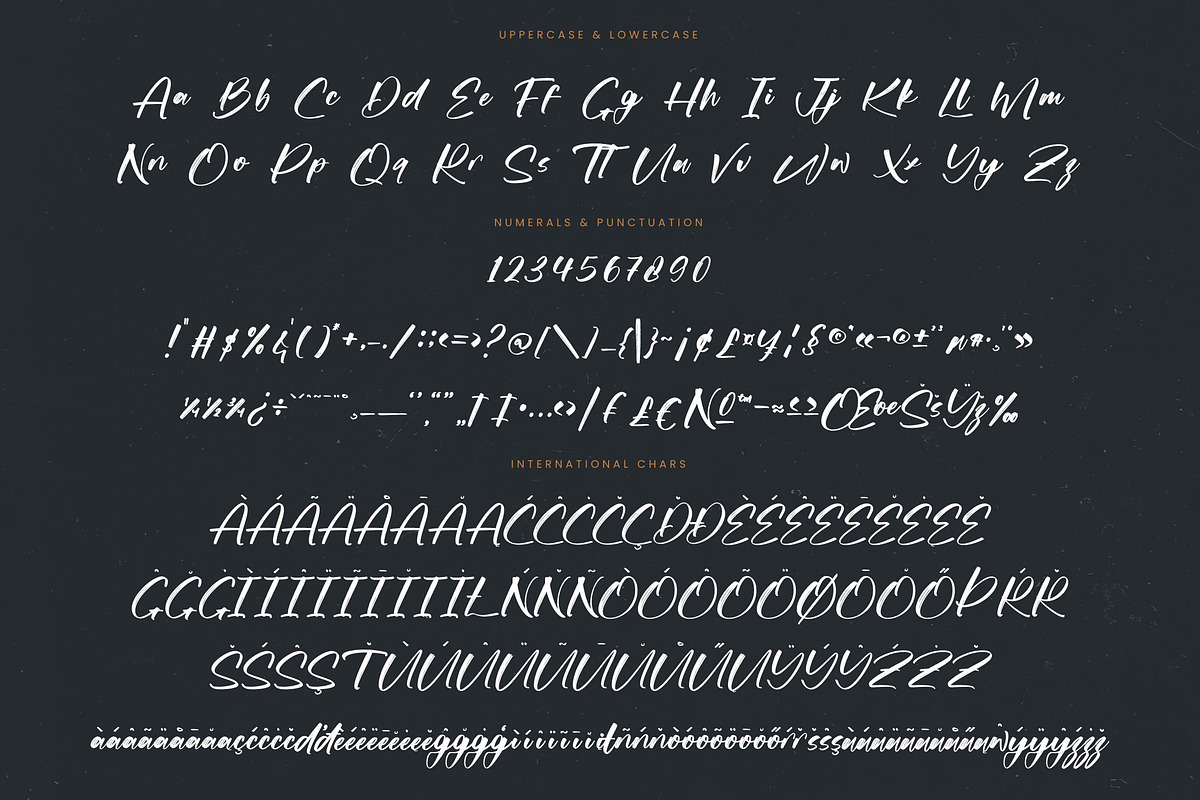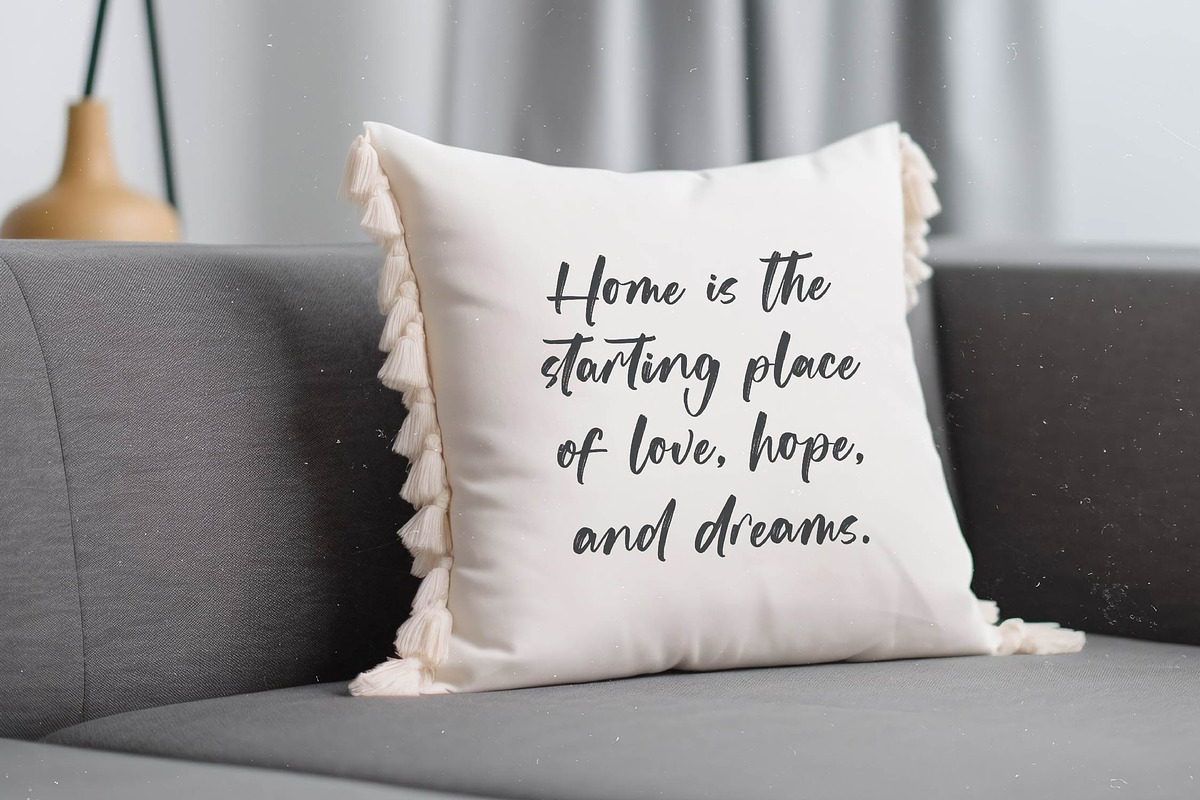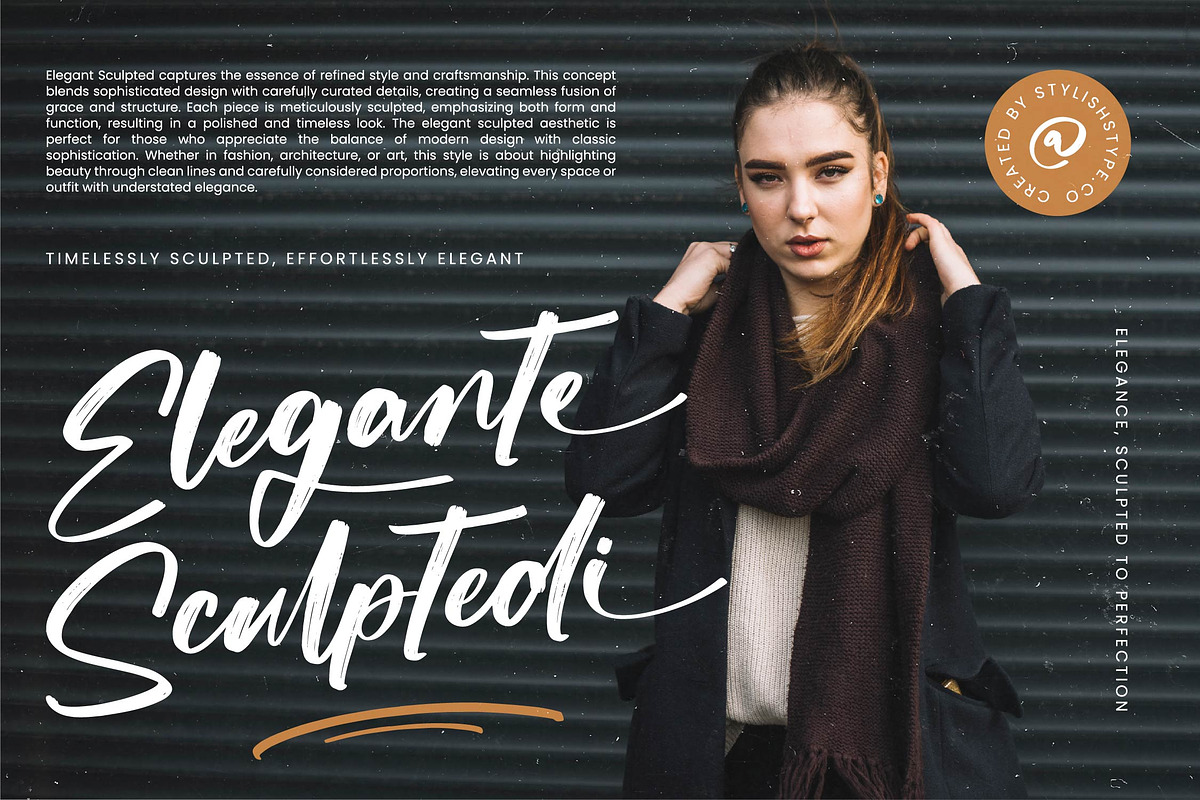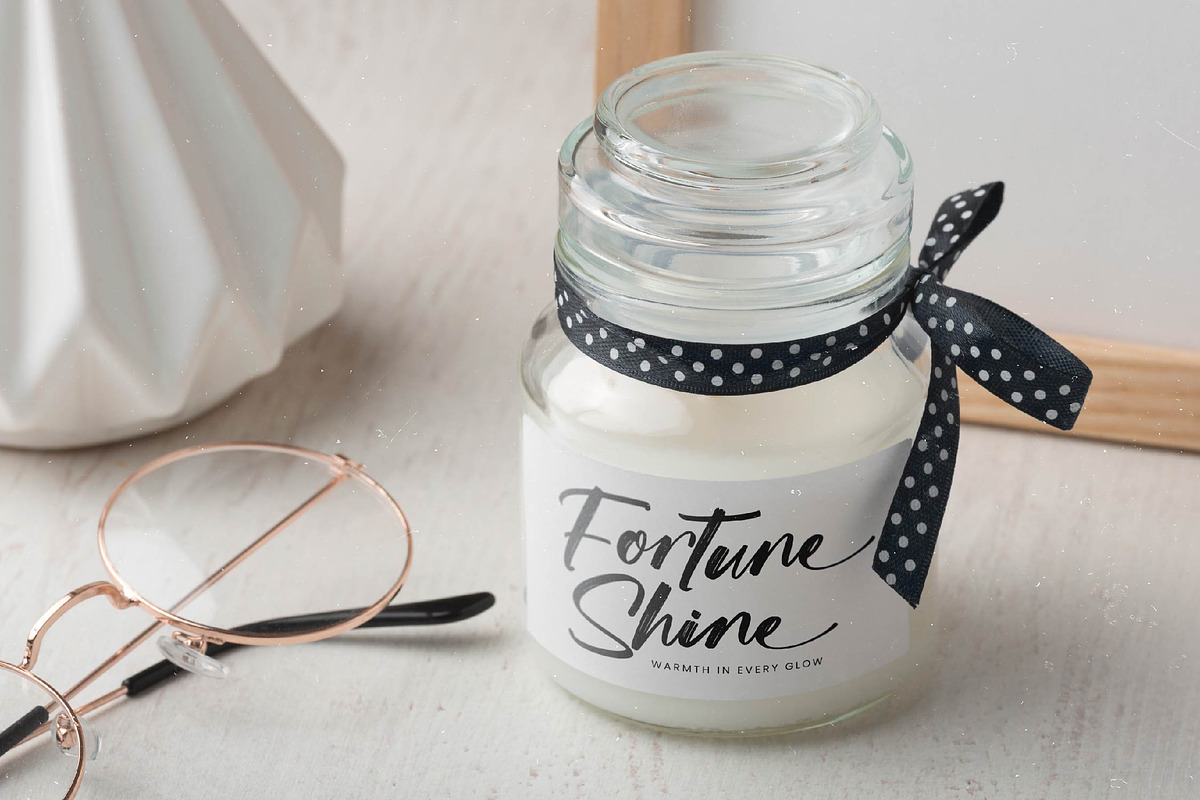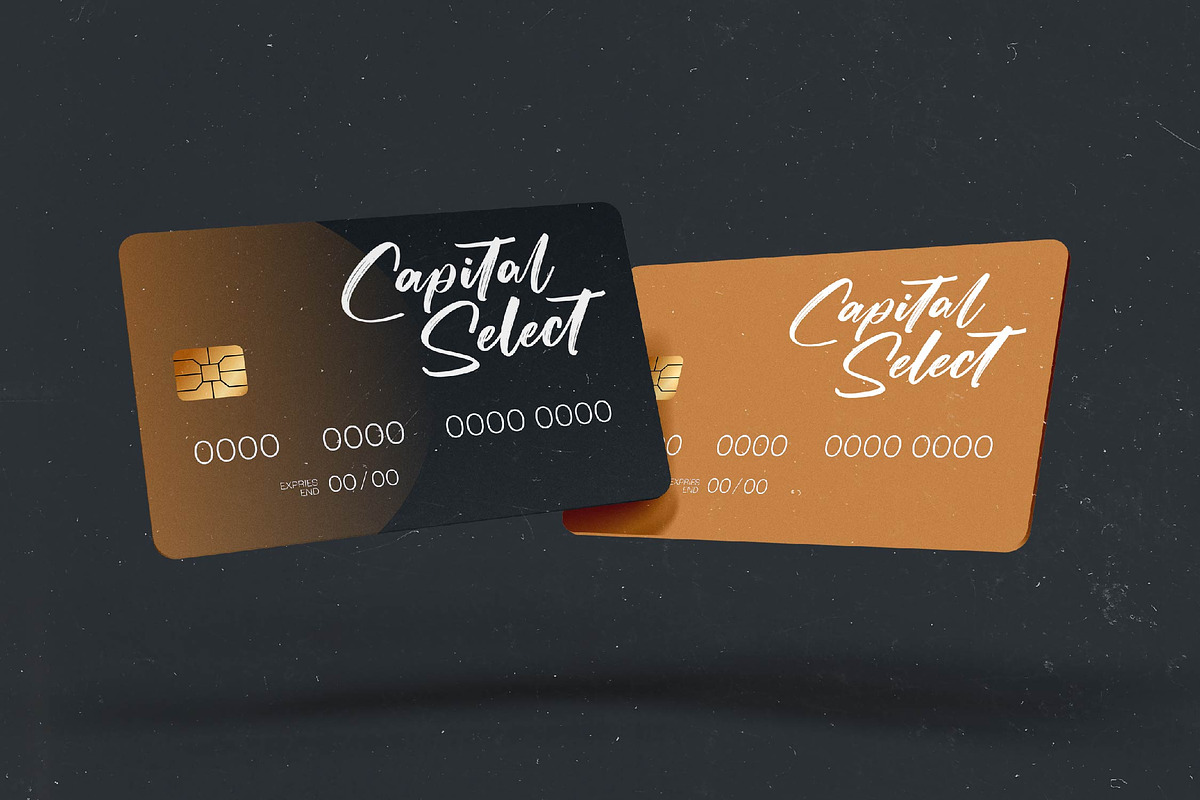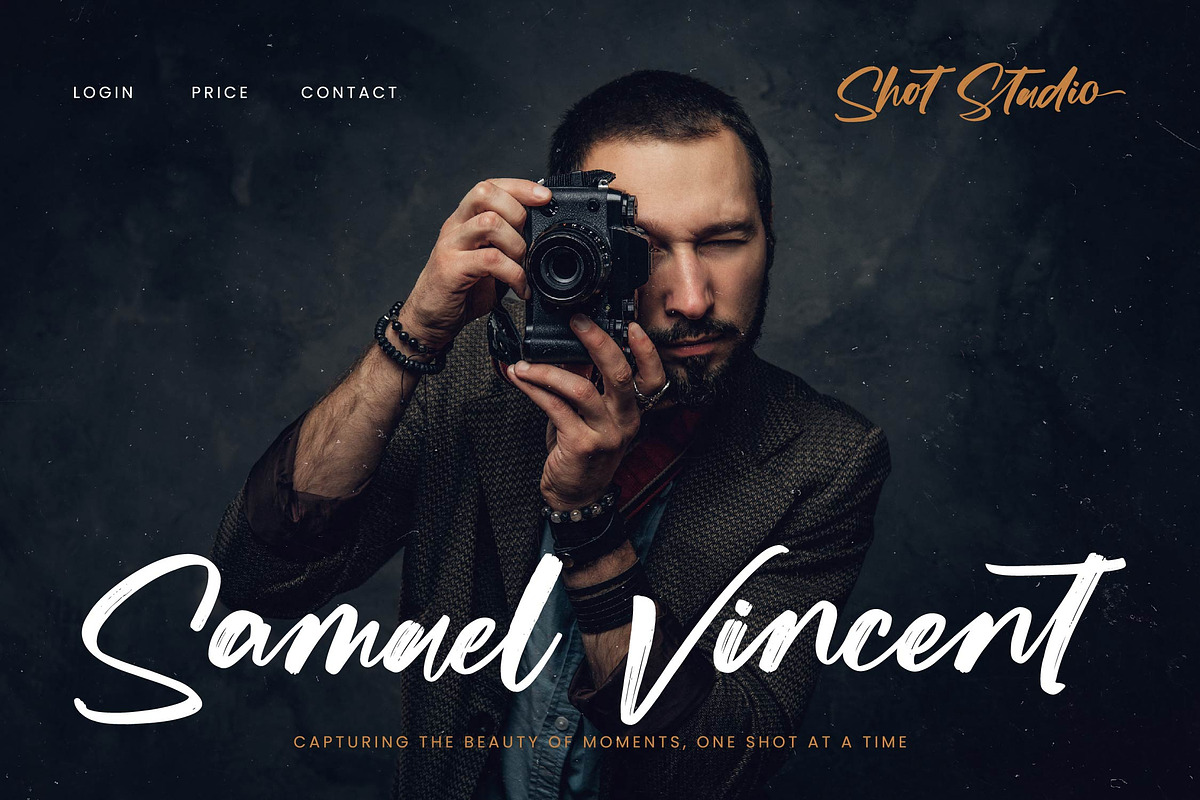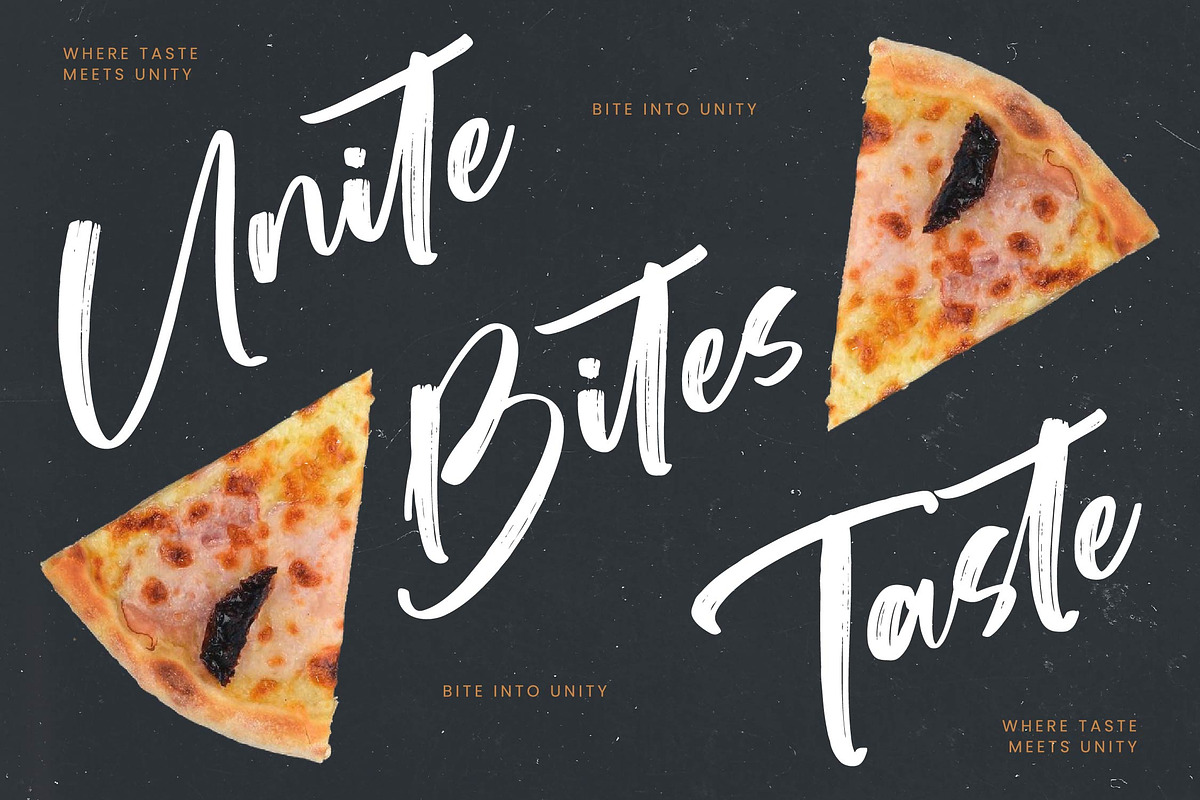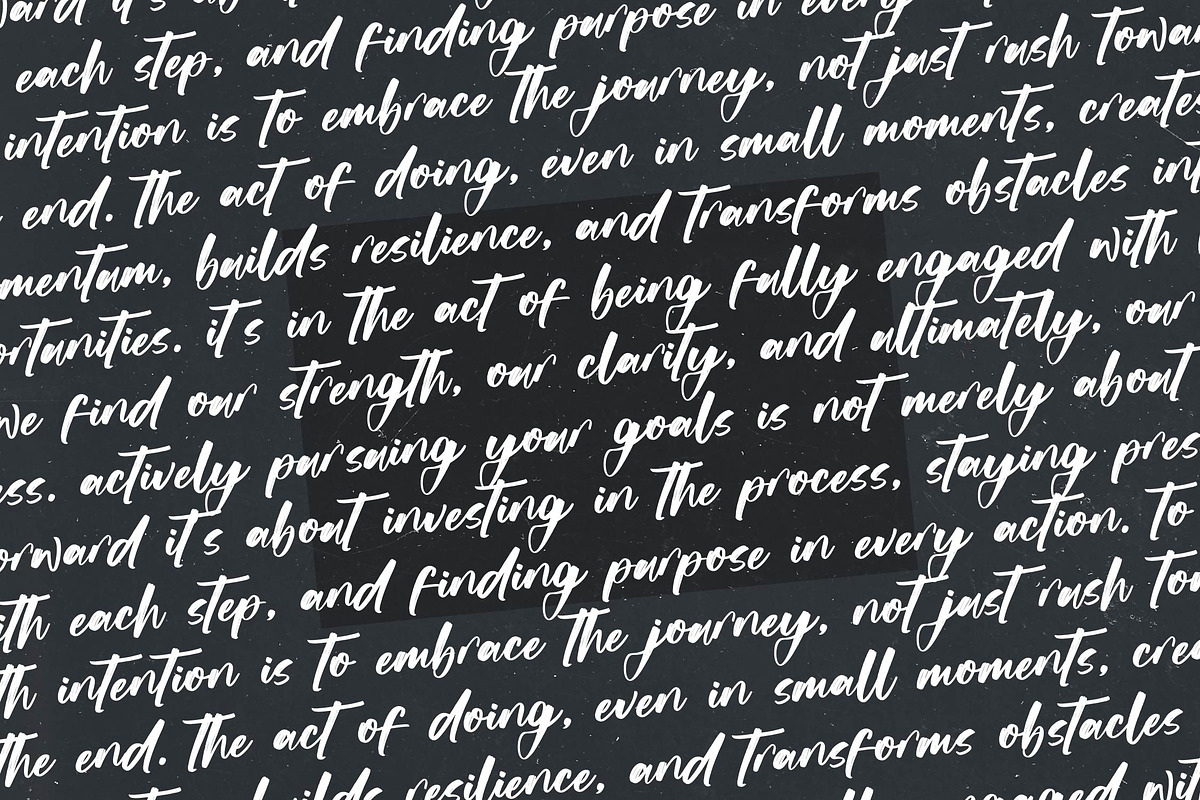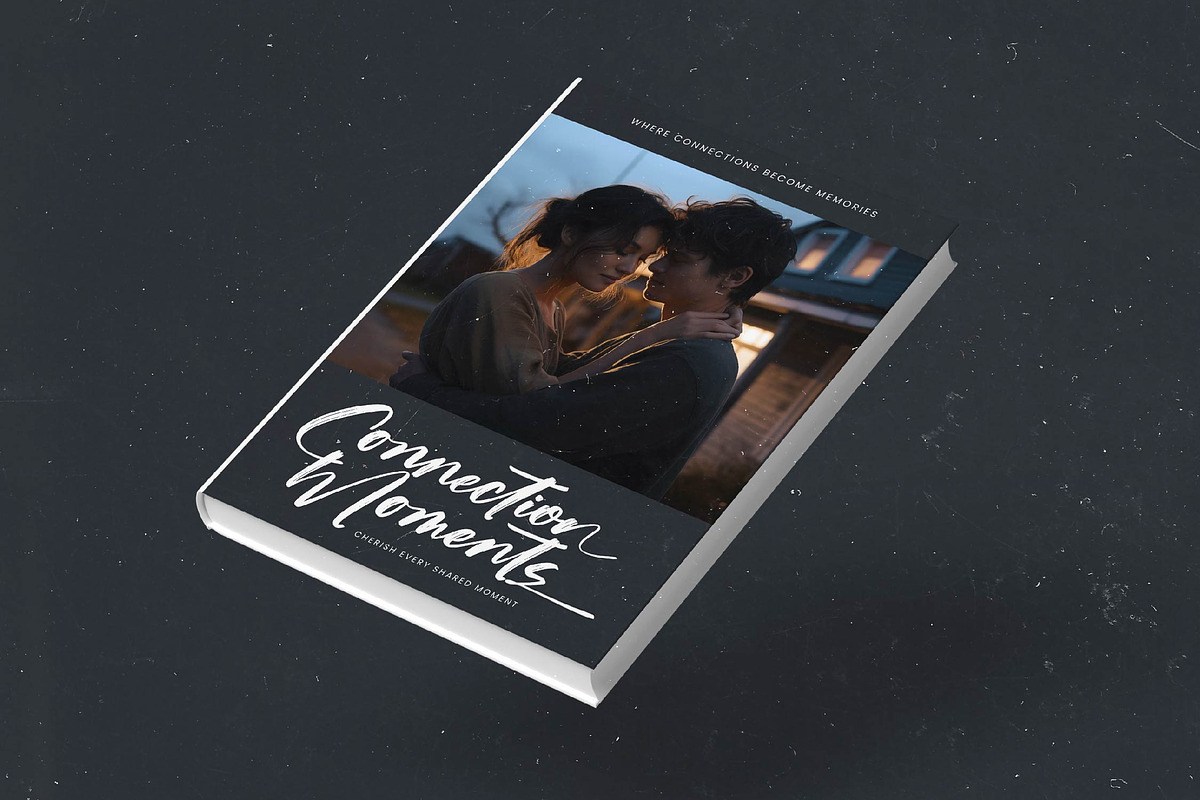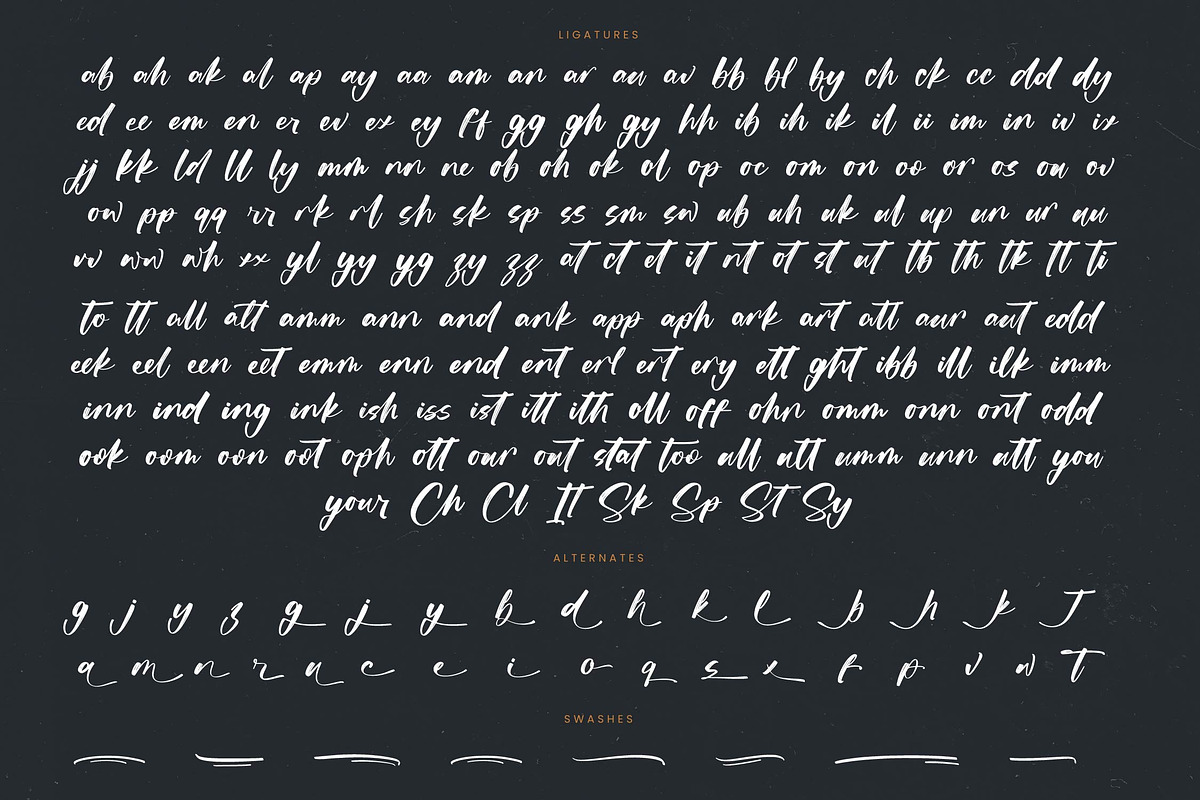
Actively Modern Brush Font
Actively - Modern Brush Font , from Stylishtype.Co , Suitable for any projects such as: logos, branding projects, homeware designs, product packaging, mugs, quotes, posters, shopping bags, t-shirts, book covers, name card, invitation cards, greeting cards, label, photography, watermark, special events, and all your other luxury and beautiful projects that need a Luxury Script taste.
- 178 Ligature 33 Alternates & 08 Swashes